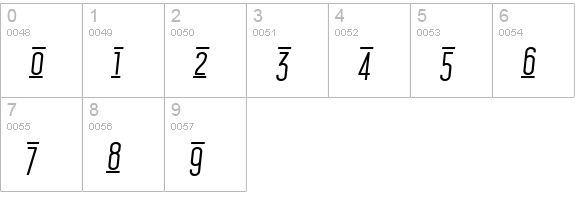
ConcursoItalian BTN Lined Oblique Font Details
ConcursoItalian BTN Lined Oblique is a distinctive, italic variant in the ConcursoItalian typeface family \xE2\x80\x94 well suited to design and typography projects.
ConcursoItalian BTN Lined Oblique is a captivating and modern font that exudes elegance and sophistication. Its sleek lines and stylish curves make it perfect for adding a touch of class to any design project. This unique font is ideal for creating eye-catching headlines, logos, branding materials, and more. With its oblique style, ConcursoItalian BTN Lined Oblique adds a dynamic and contemporary flair to your designs. The best part? ConcursoItalian BTN Lined Oblique is completely free to download at FontsMarket.com. This means you can enhance your projects with this stunning font without breaking the bank. Don't miss out on the opportunity to elevate your designs with the beauty and versatility of ConcursoItalian BTN Lined Oblique. Download it today and see the difference it can make in your creative endeavors.